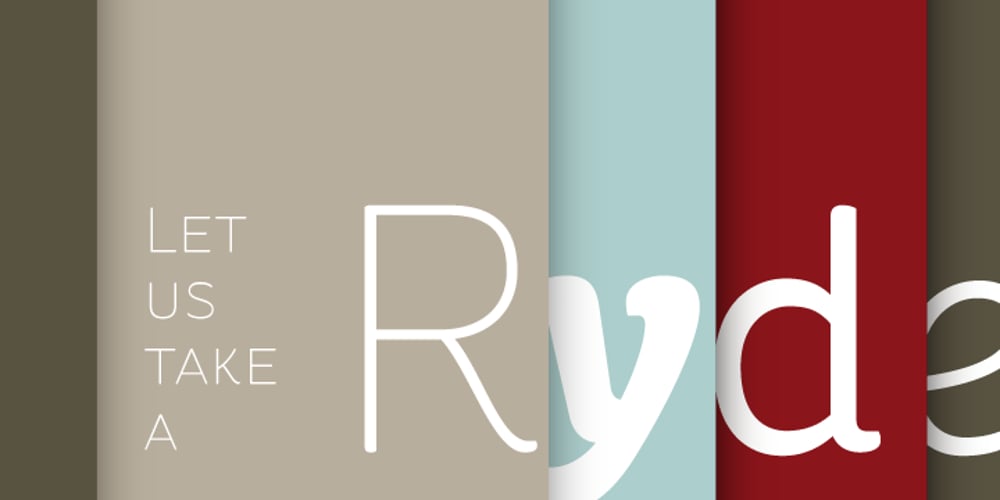
St Ryde
St Ryde font
St Ryde Font Family was designed by Sascha Timplan and published by Stereotypes. St Ryde contains 10 styles and family package options. St Ryde is a humanistic sans-serif with a slight touch of a script typeface. The most significant aspect of the typeface is the combined sharp and round treatment of the stroke endings. The complete Ryde Family contains five weights including real matching italics, so you can choose from thin, light, regular, medium and bold. St Ryde has a wide range of characters, including small caps, lining proportional and tabular figures plus small caps figures, too.